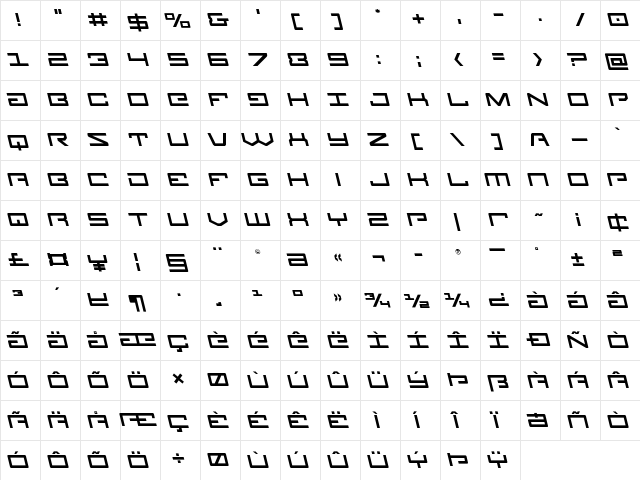
Legion Leftalic Italic
Design Context for Legion Leftalic Typeface
Legion Leftalic is a composed and adaptable typeface that performs quietly and consistently across a wide range of design contexts. Its italic angle brings a sense of urgency and motion to the letterforms.
Pro Tip: Try Legion Leftalic for annotation and caption copy alongside an upright companion — the contrast in angle creates a dynamic but ordered typographic system.